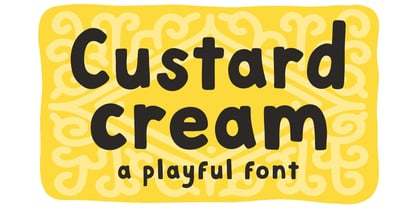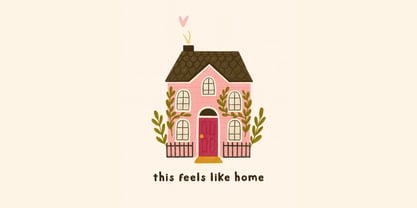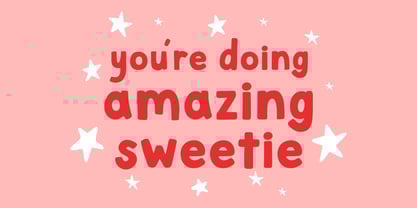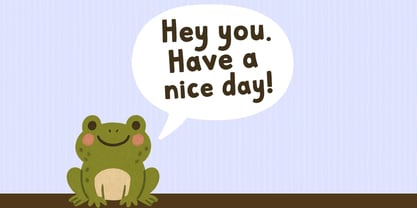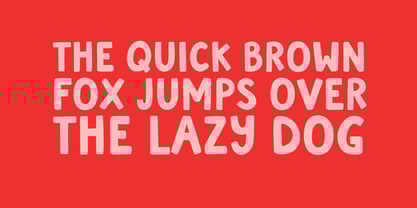
Custard Cream
by Happy Type Club
The Custard Cream Font Family was designed by Isabel Clarke and published by Happy Type Club. Custard Cream contains 1 styles. More about this family
Custard Cream is a playful child-like typeface perfect for any fun quirky design work! This font can be used for anything such as T-Shirt designs, phone cases, greeting cards, invitations, mugs and so much more! Get creative!
Designers: Isabel Clarke
Foundry: Happy Type Club